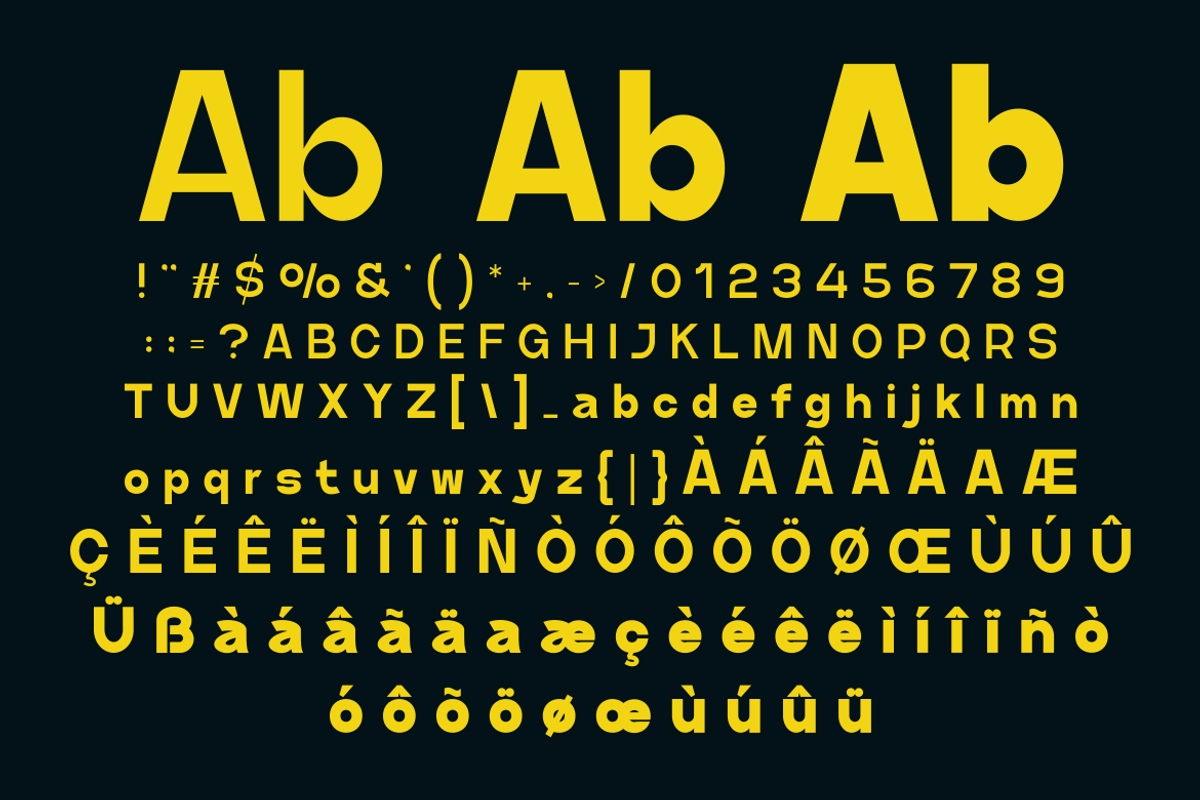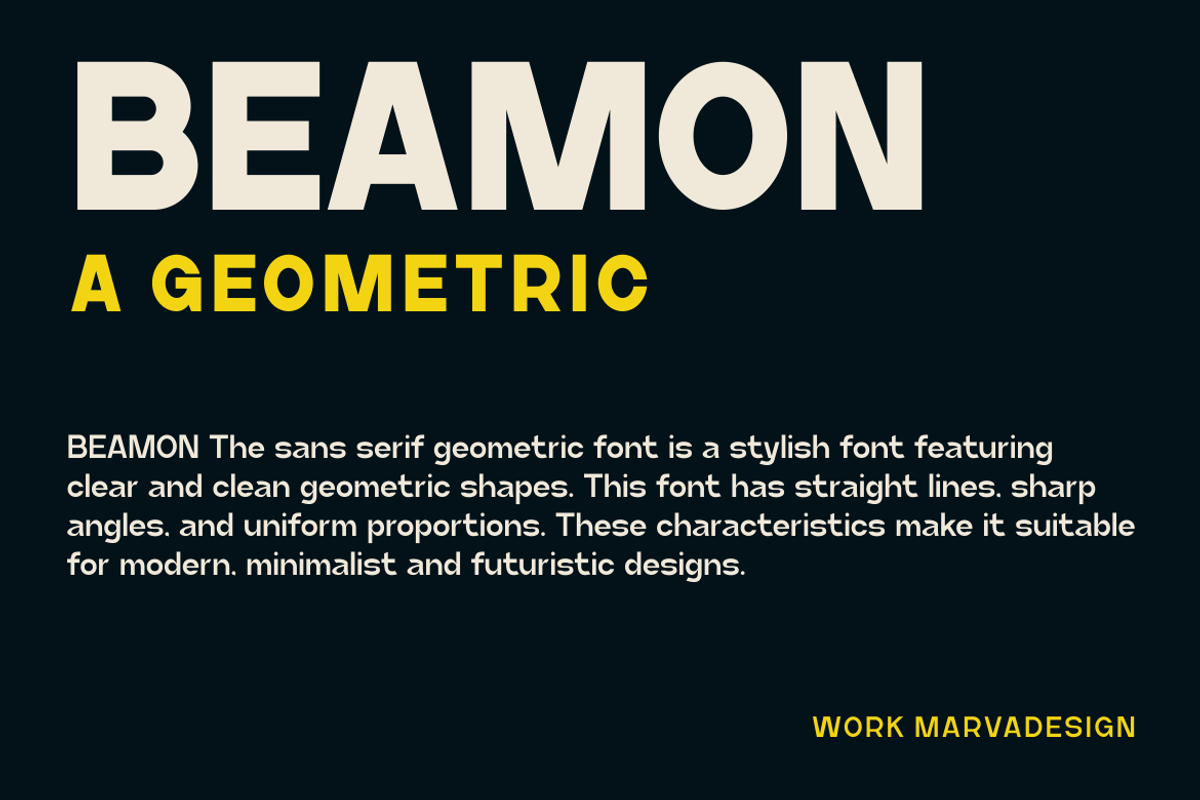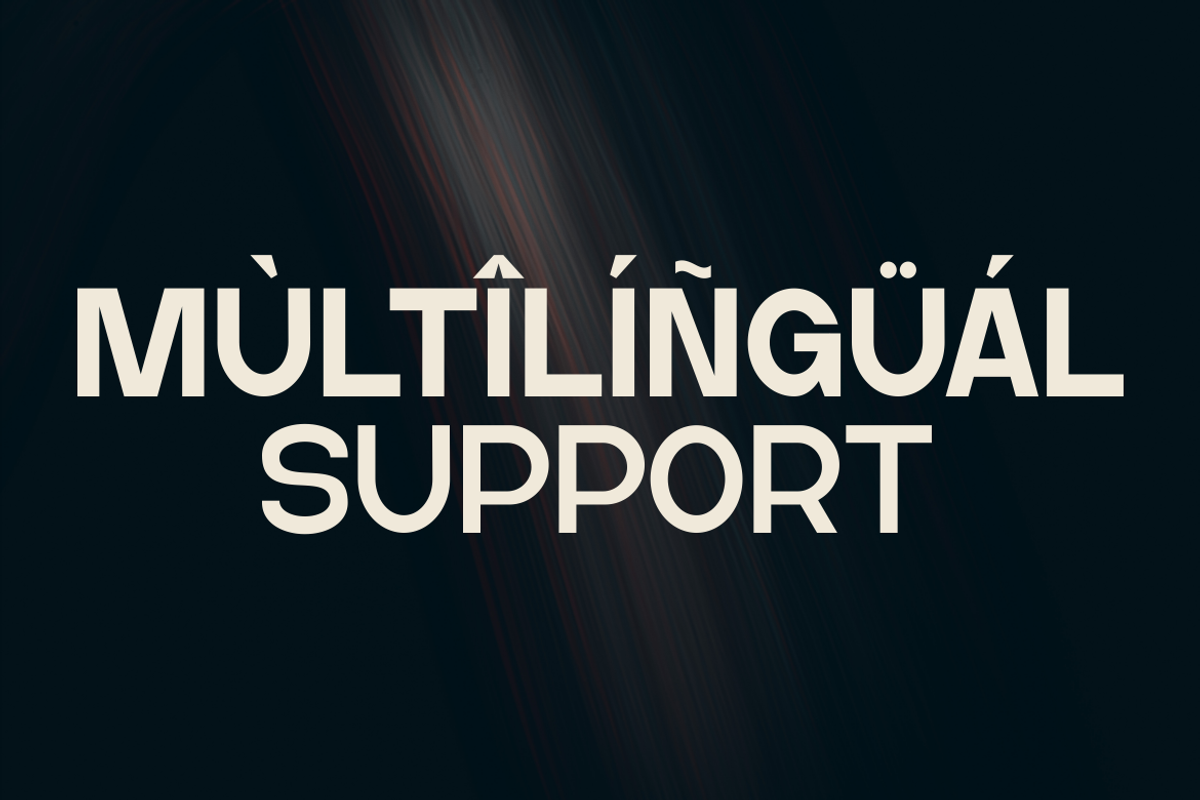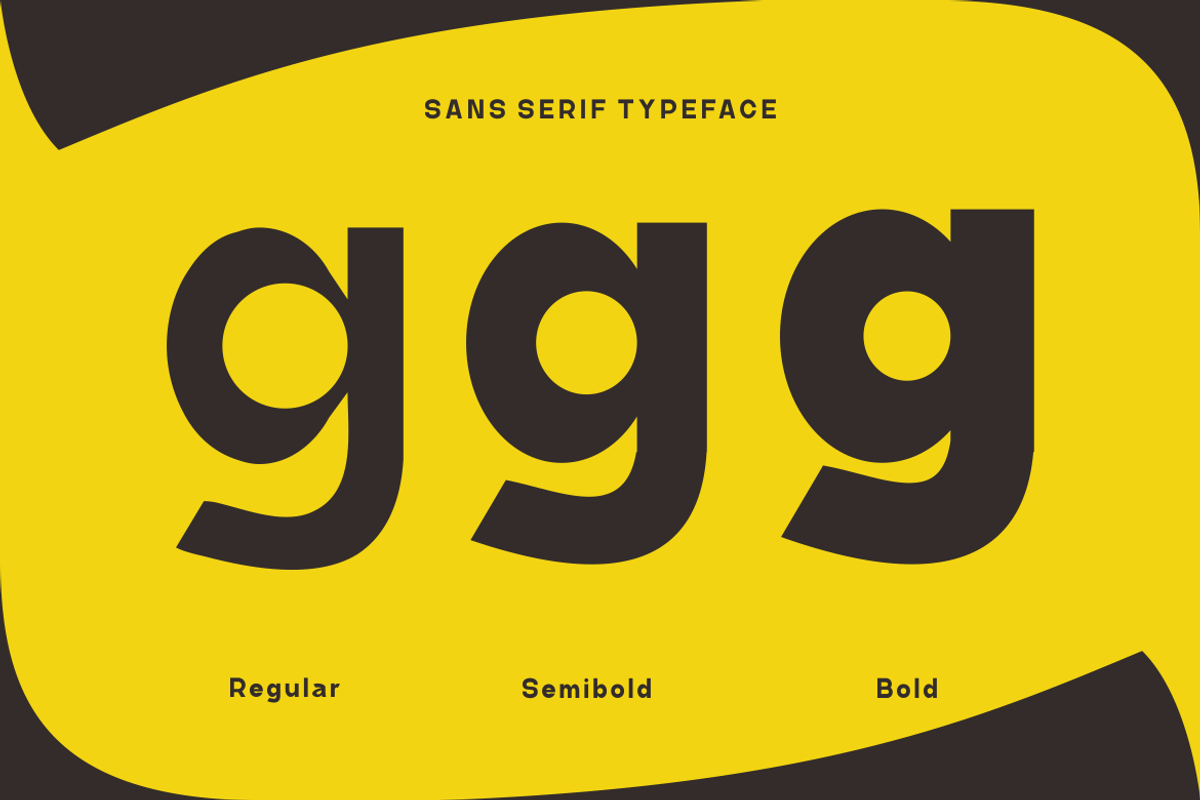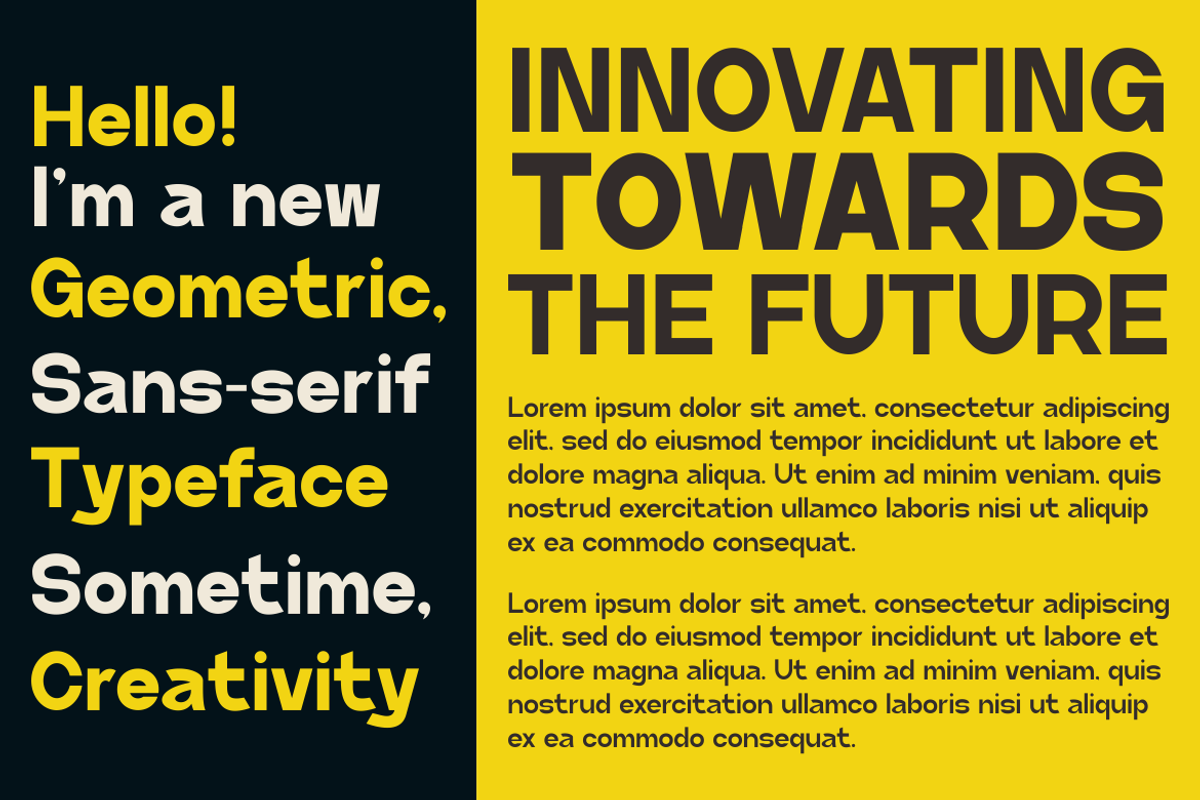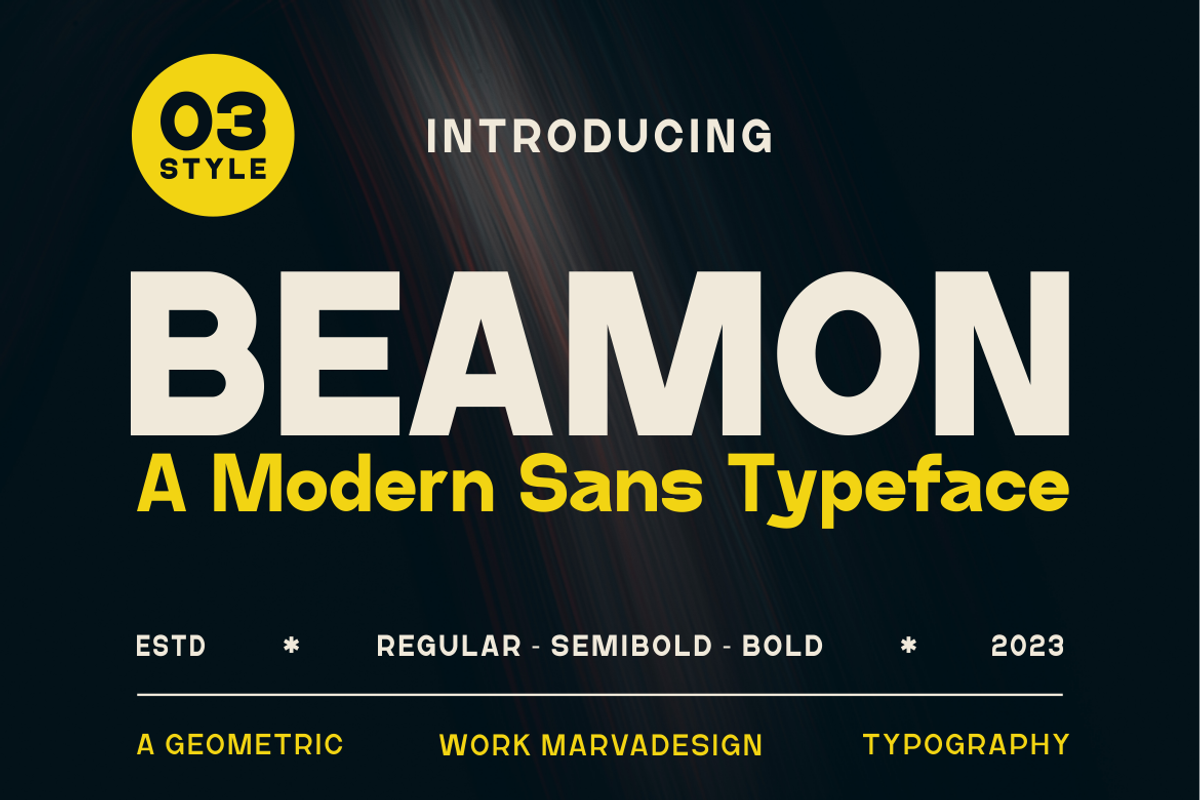
Beamon - A Modern Sans Serif Font
Introducing our new product Beamon Font - Modern Font Beamon Font** - Modern Font is a bold and authentic display font. The font is suitable for any branding project like logo, Template Design, Product and many more. outstanding in a wide range of contexts.